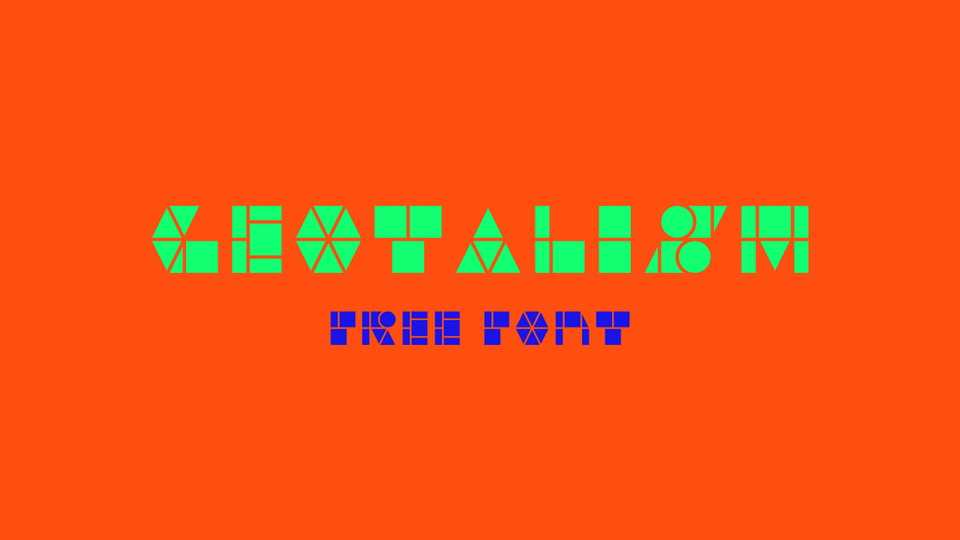
Download Geotalism font, an abstract geometric typeface based on triangle and rectangle blocks. With its modular structure Geotalism font is best for posters, prints and typography compositions.